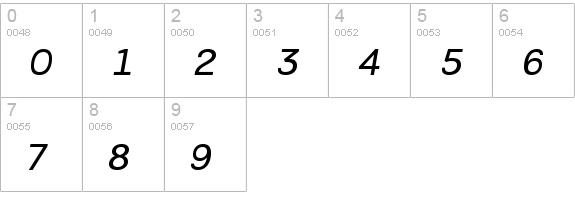
PFEncoreSansPro-Italic is a distinctive, italic variant in the PFEncoreSansPro typeface family \xE2\x80\x94 well suited to design and typography projects.
PFEncoreSansPro-Italic is a stylish and modern typeface that effortlessly combines elegance with readability. The slanted nature of the italic style adds a touch of sophistication to any design, making it perfect for editorial projects, branding, and more. This font features sleek and smooth letterforms that flow gracefully across the page, creating a visually appealing aesthetic. The best part? PFEncoreSansPro-Italic is available for free download at FontsMarket.com. This means you can easily access this high-quality typeface without any cost, making it a valuable addition to your font library. Whether you're a designer looking to elevate your projects or a typographer seeking a versatile font, PFEncoreSansPro-Italic is sure to impress with its versatility and charm. Download it today and enhance your designs with this exquisite font.